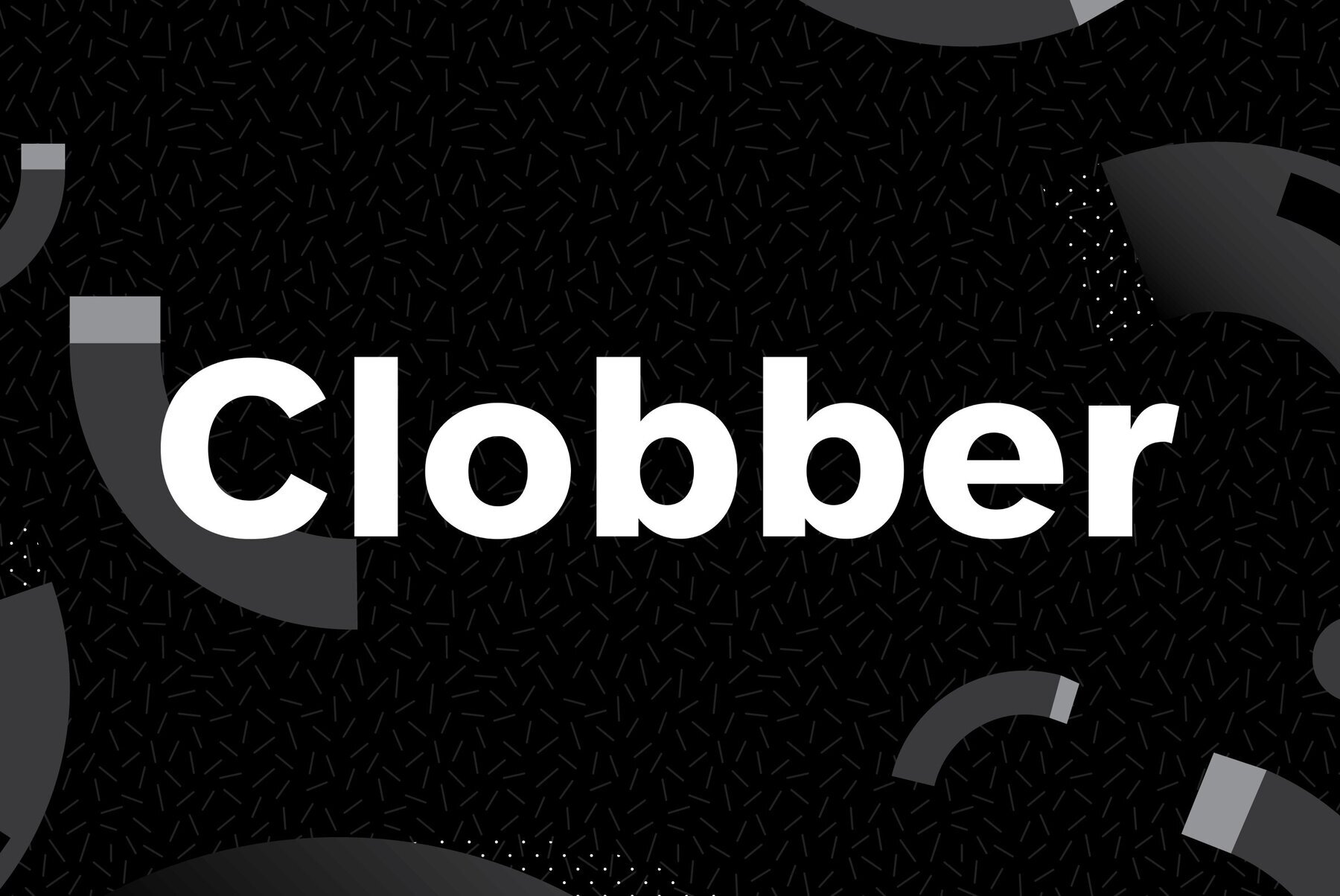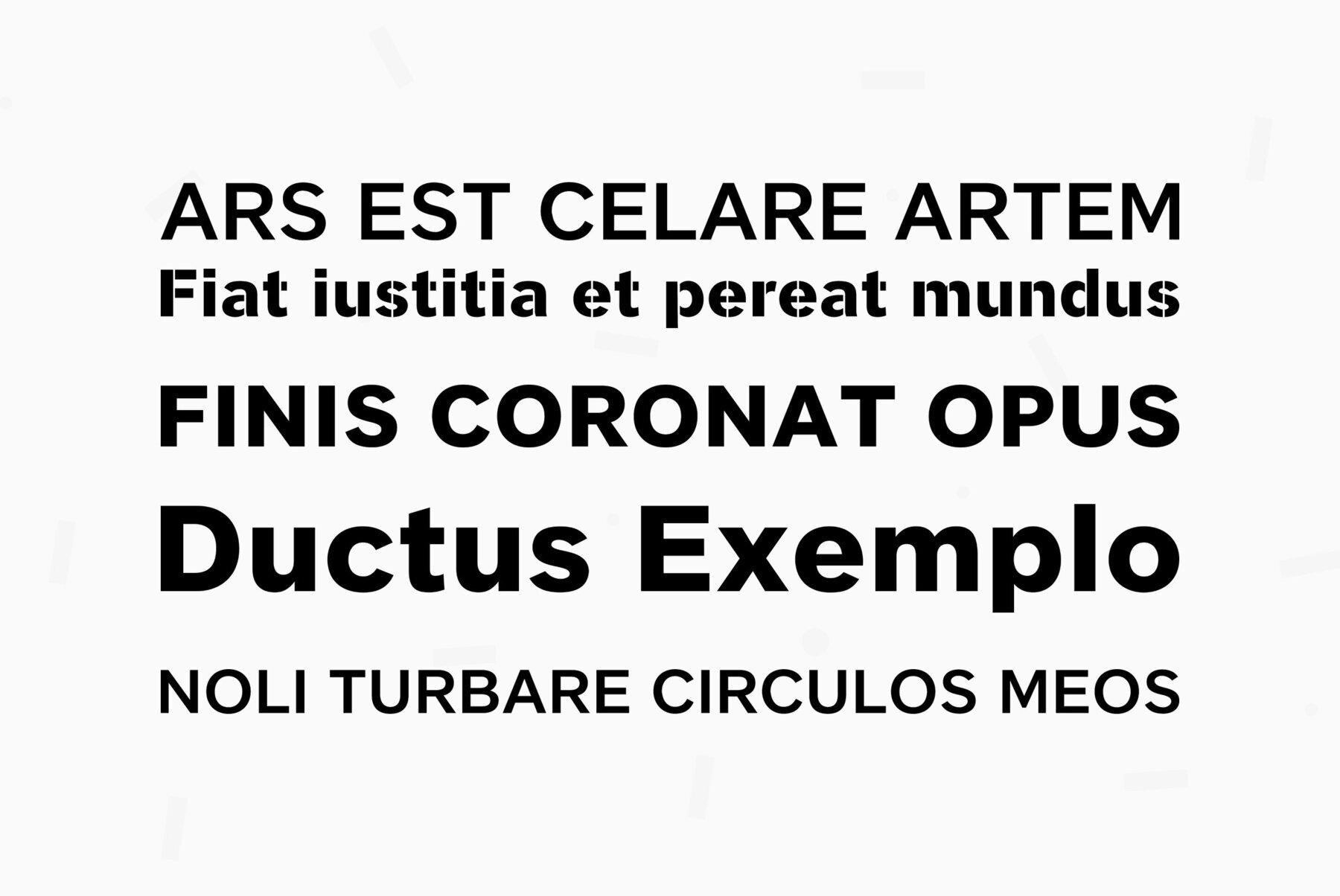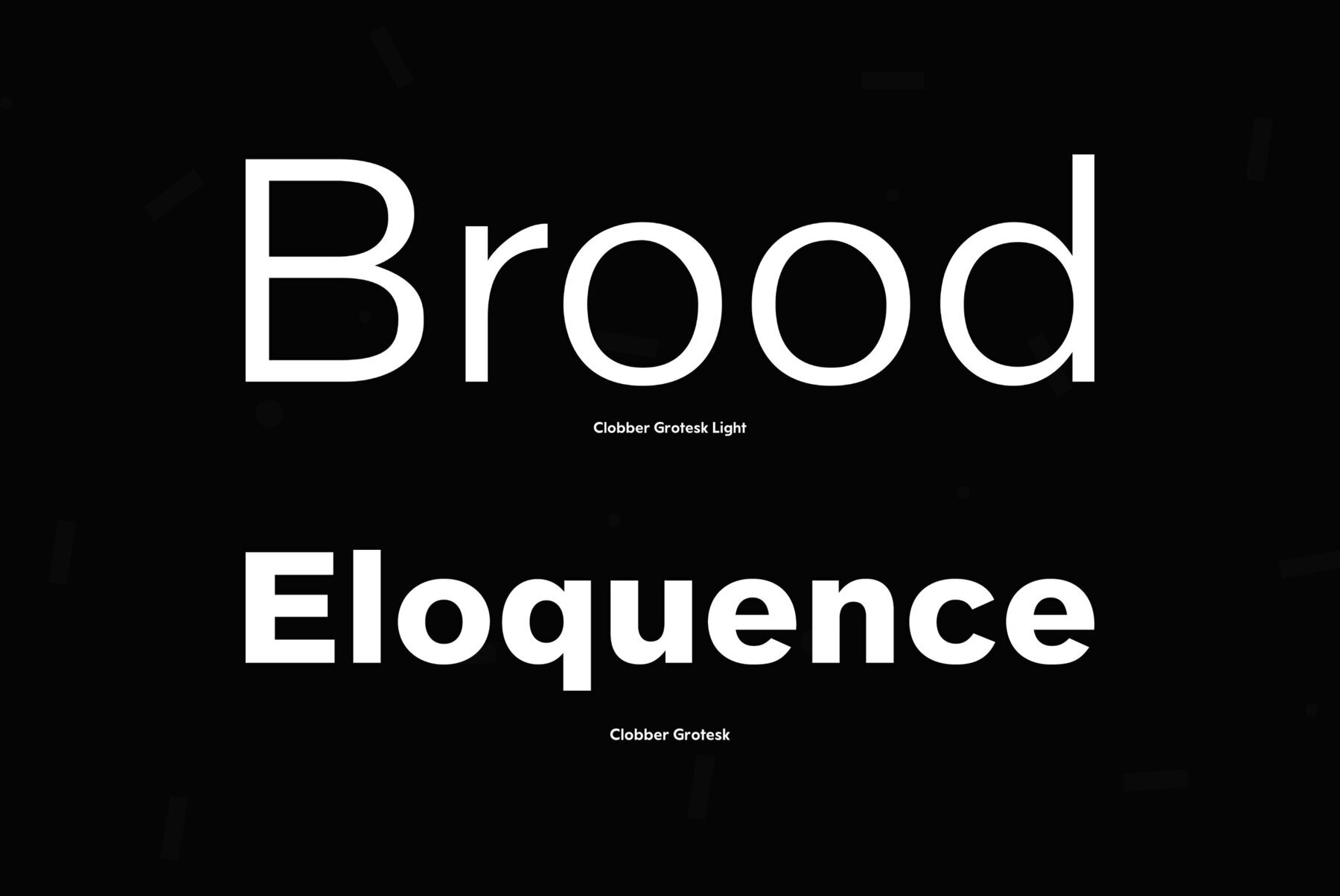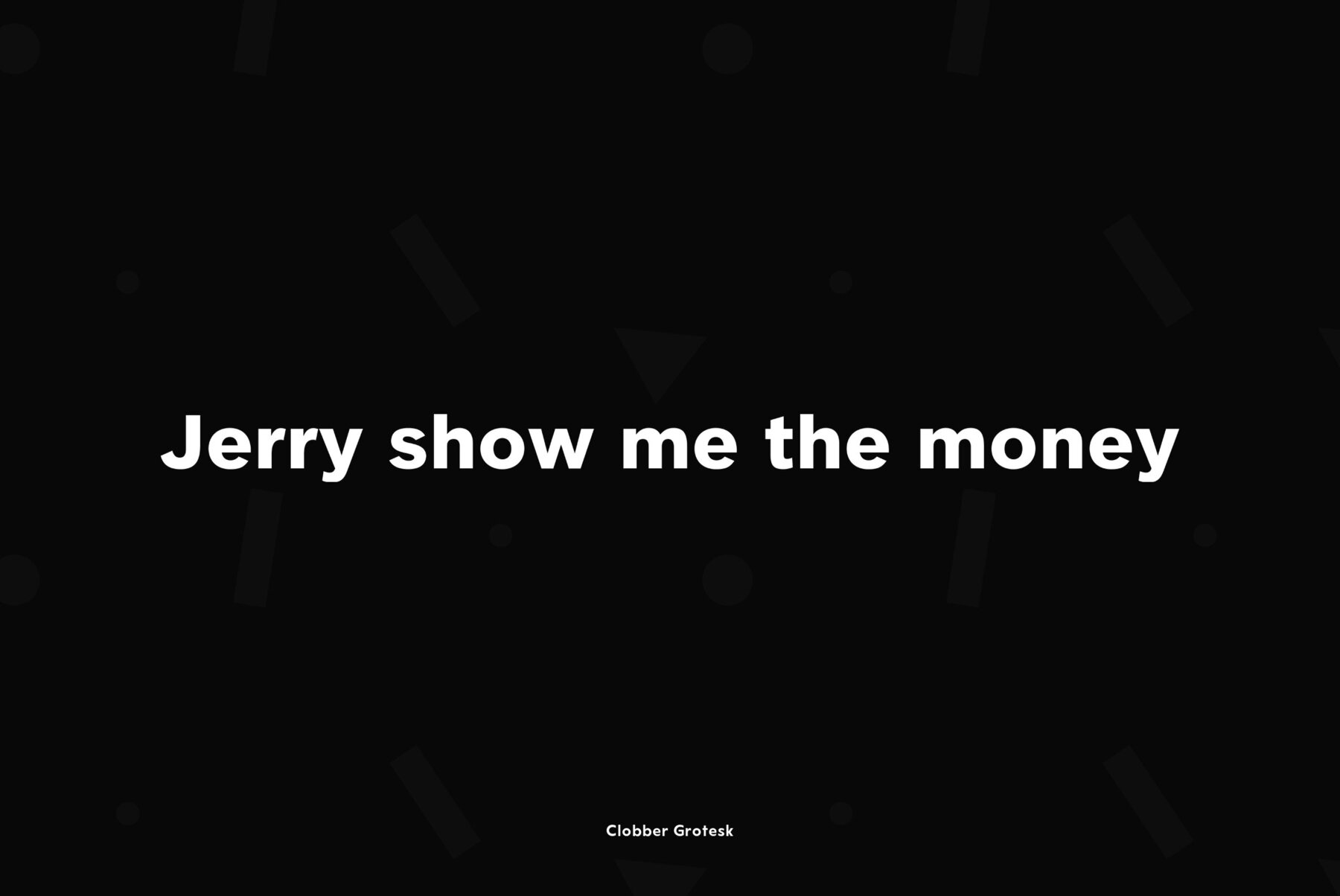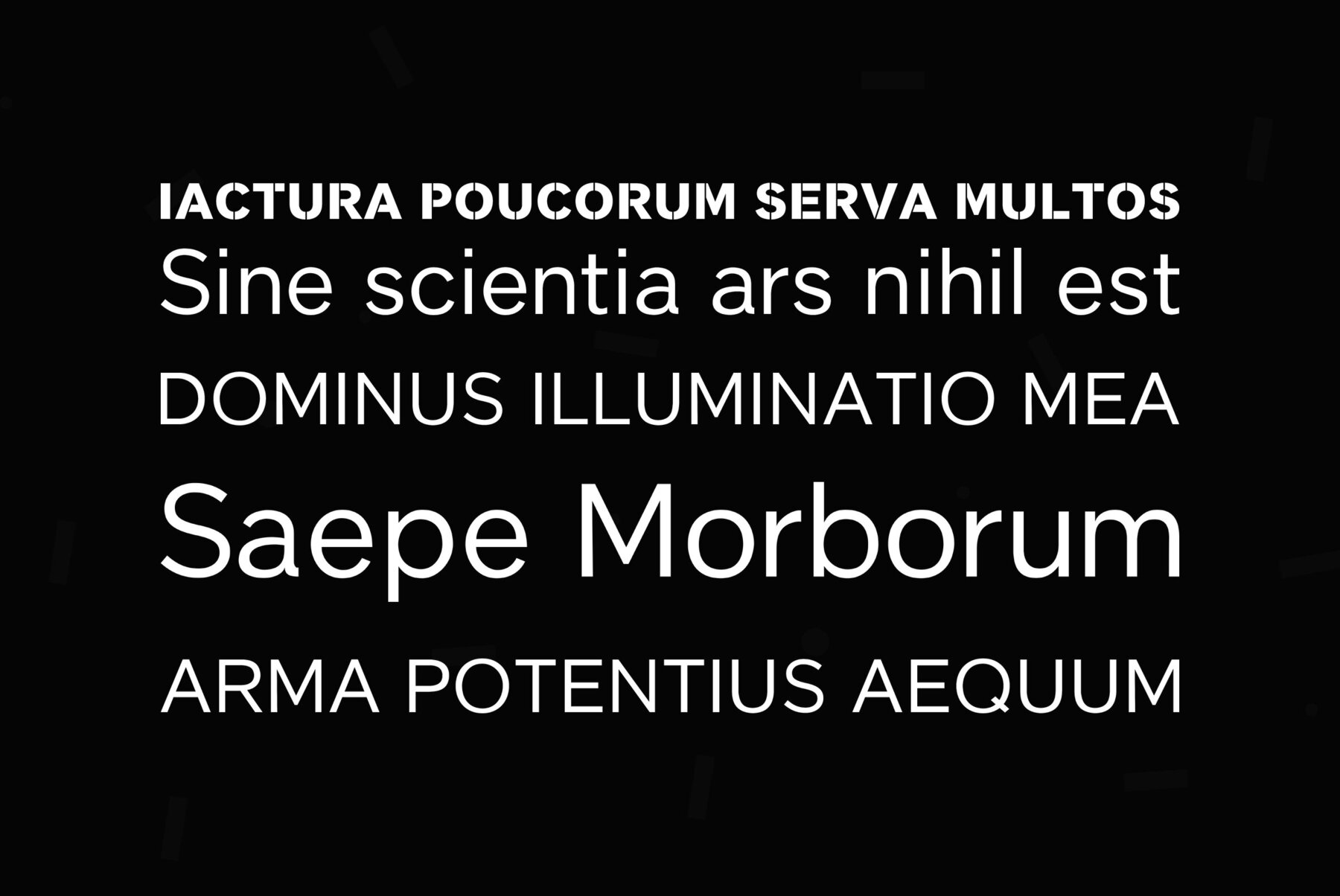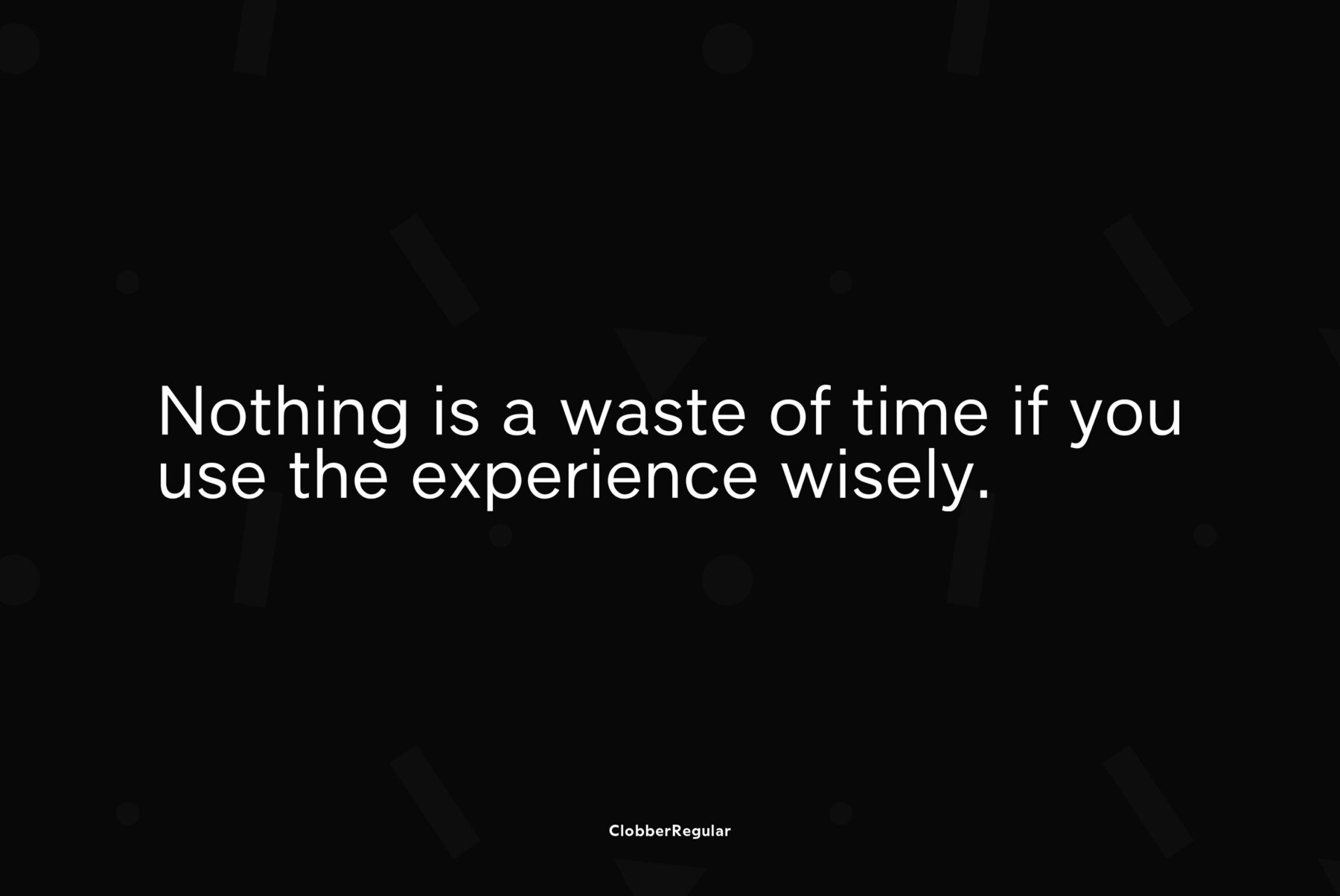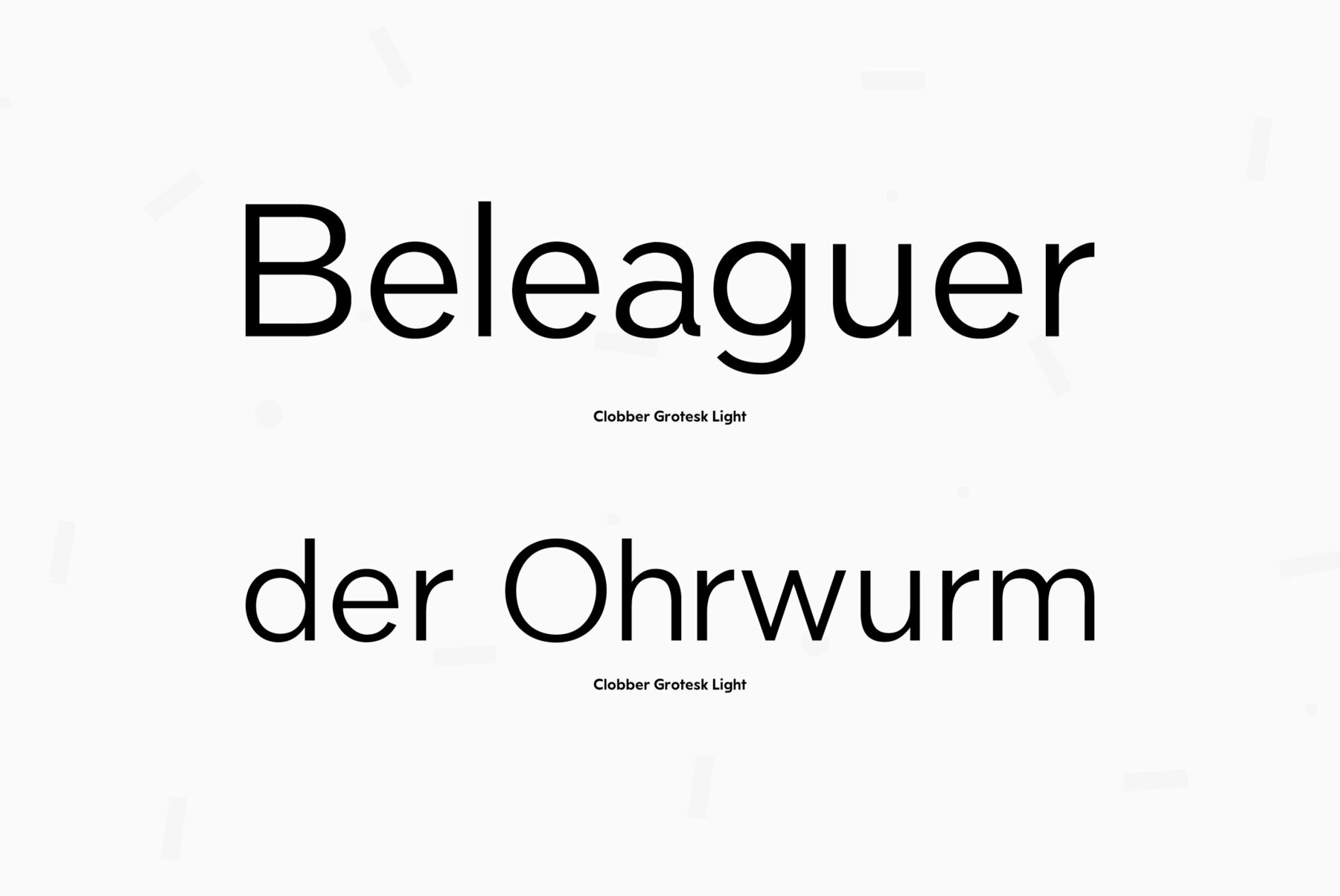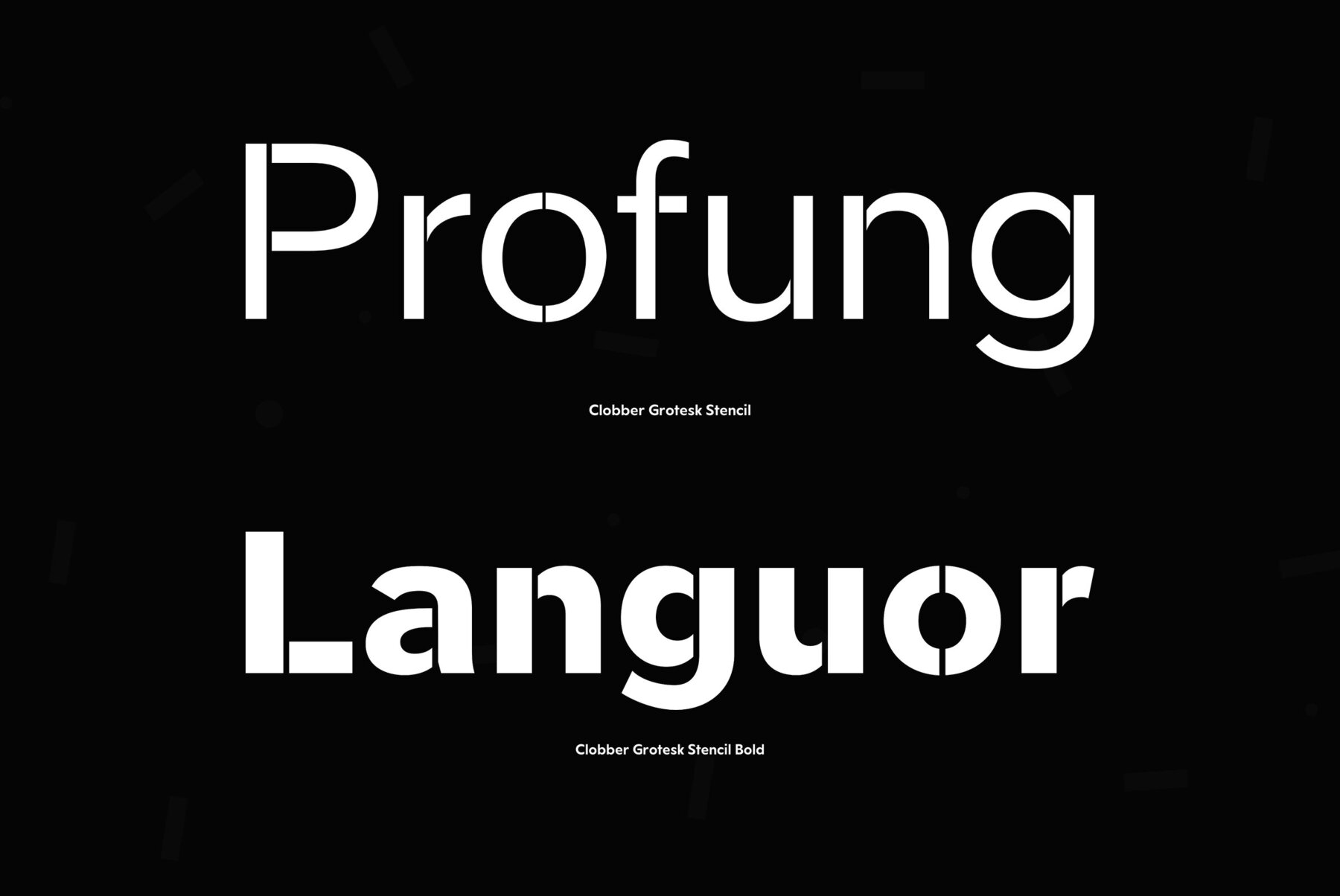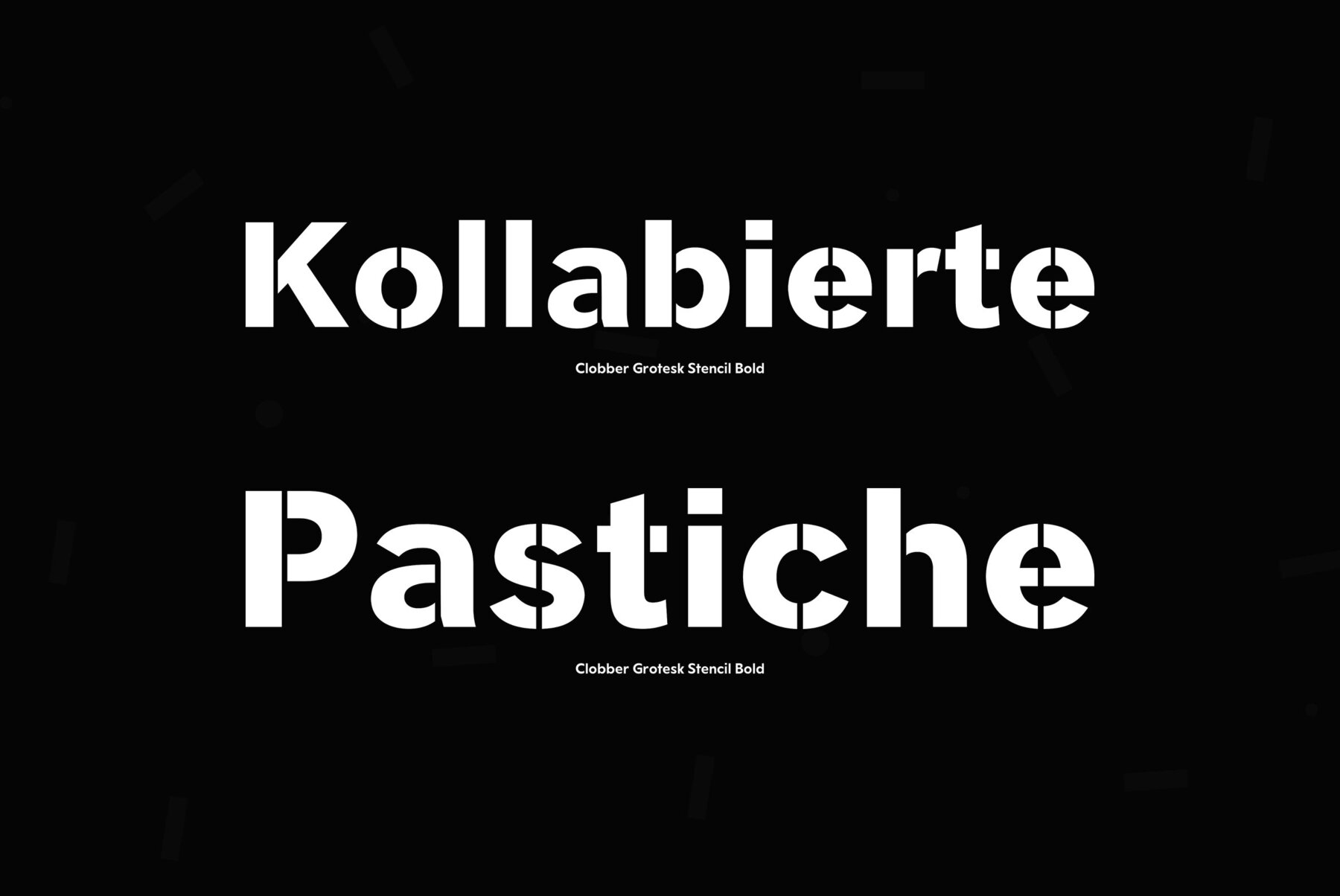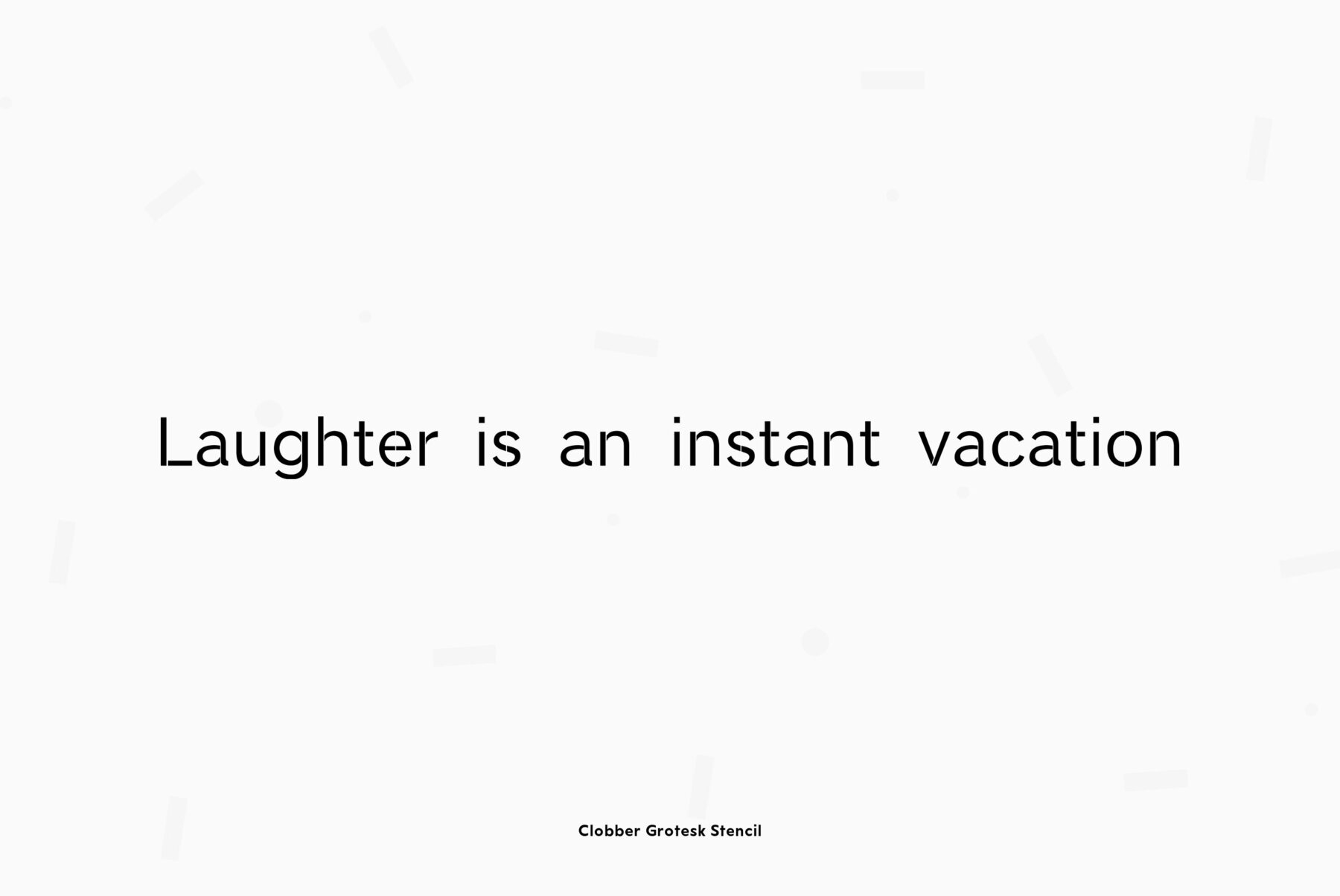
Clobber Grotesk
Foundry: Wordshape
Clobber Grotesk Bold is a grotesk typeface family designed for high readability. It includes a range of weights and stencil variants. The terminals of the letterforms are slightly flared in order to increase legibility.